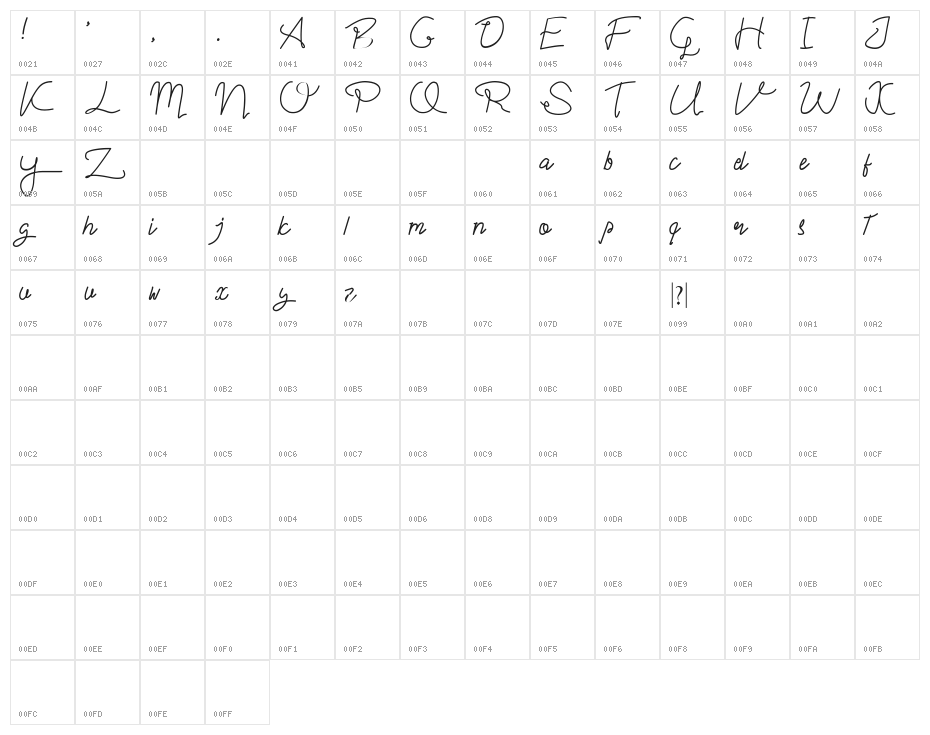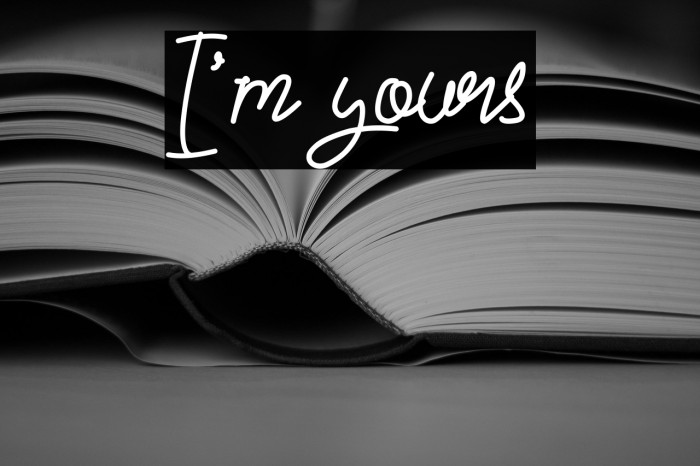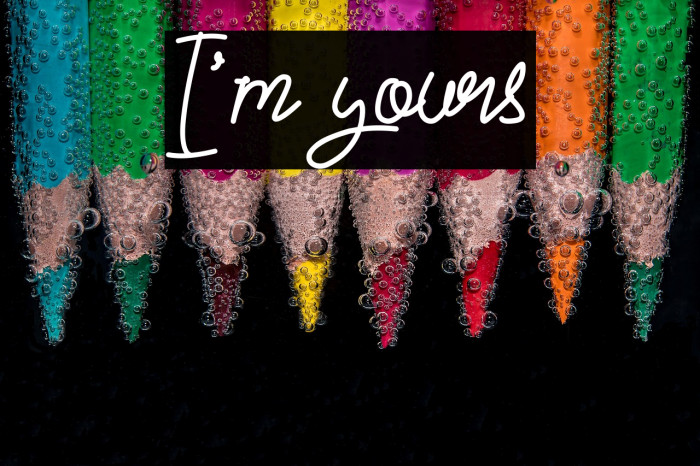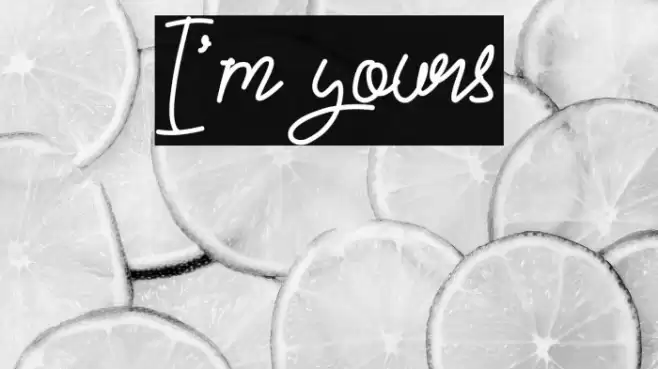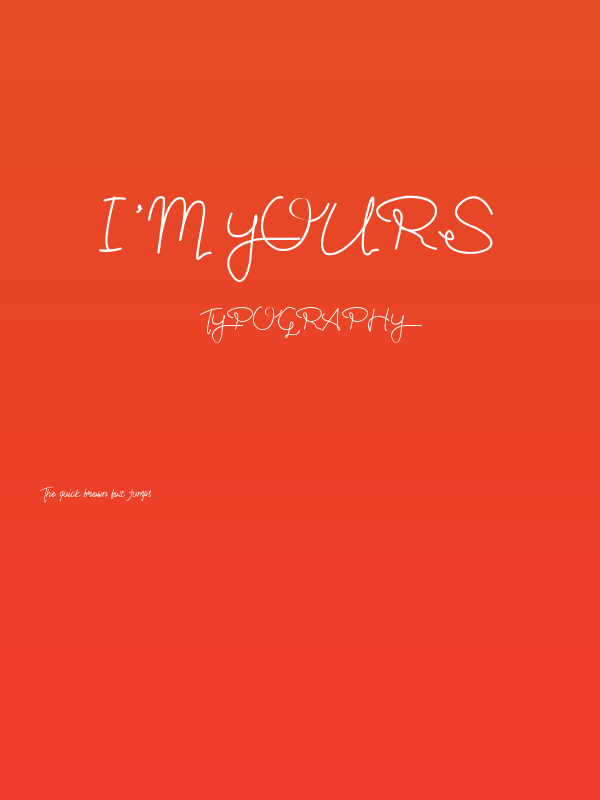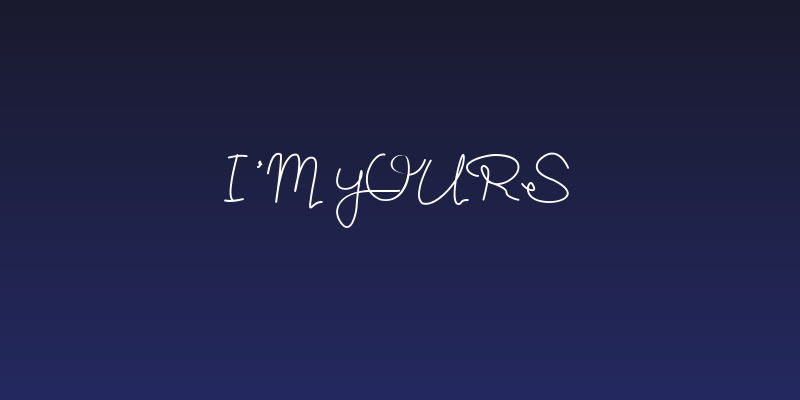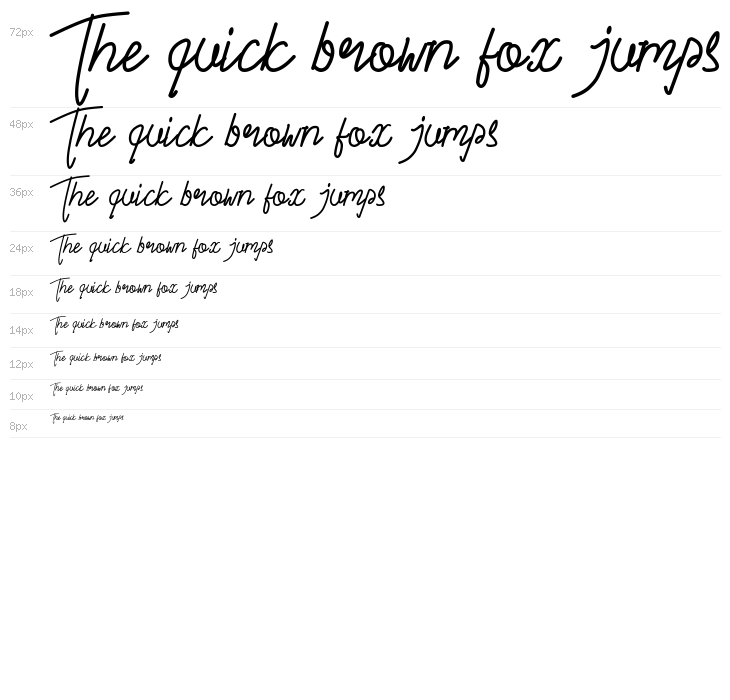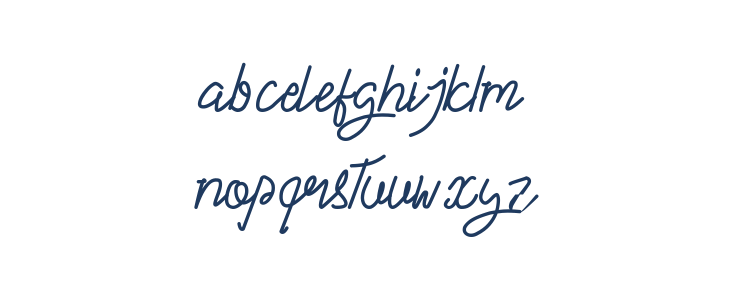
I'm yours Font
I'm yours Description
This font features a unique and elegant script style with a flowing, handwritten appearance. The uppercase letters are characterized by their elongated and slightly slanted forms, giving them a sophisticated and artistic look. The lowercase letters maintain a consistent flow, with smooth curves and loops that enhance the handwritten feel. The numbers and special characters are designed to complement the overall style, maintaining the same fluidity and elegance. This font is perfect for projects that require a personal touch, such as invitations, greeting cards, and branding materials.
| Overall Style | Elegant, Artistic |
| Use Case | Invitations, Branding, Artistic projects |
| Proposed Projects | Ideal for wedding invitations, personal branding, greeting cards, and artistic projects. |